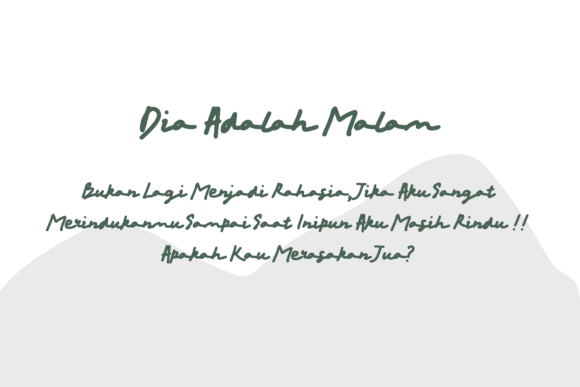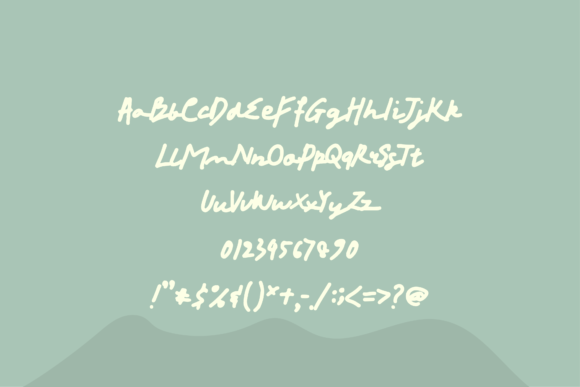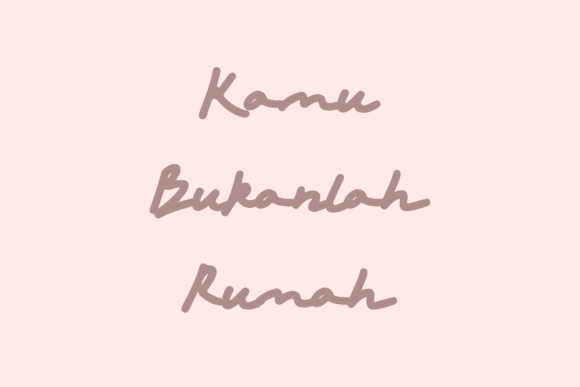
Introduction to Selalu Dia Font
Selalu DIa is a sweet and friendly handwritten font.
Key Features of Selalu Dia Font
Why Choose Selalu Dia Font?
Selalu Dia Font offers exceptional quality and versatility, making it a valuable addition to your design toolkit. Whether you’re creating for personal projects or commercial use, Selalu Dia Font delivers professional results.